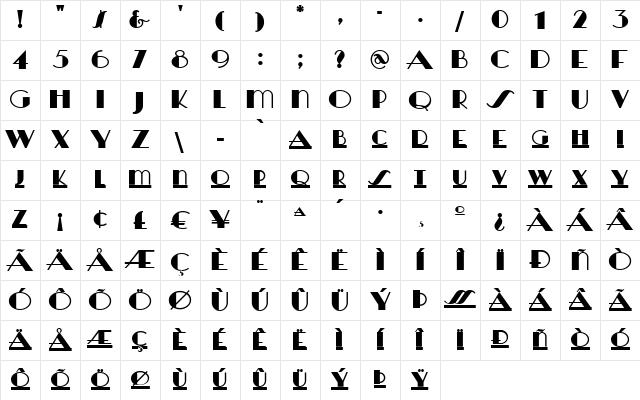
HeraldSquare Regular Free Font
HeraldSquare Regular
Foundry: Nick's Fonts
Designer: Nick Curtis
Design Context for HeraldSquare
HeraldSquare is a composed and adaptable typeface that performs quietly and consistently across a wide range of design contexts.
Who designed the HeraldSquare Regular font?